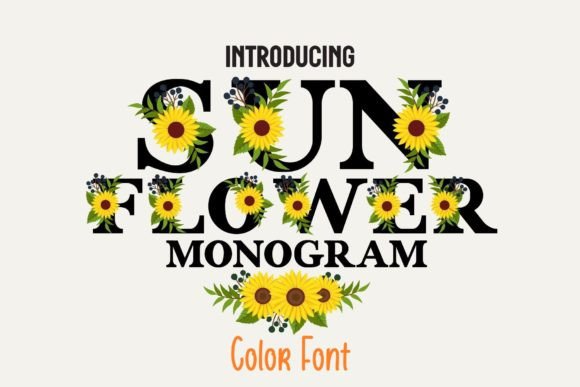
Enhance Your Web Design with Sunflower Monogram
Sunflower Monogram, a meticulously designed color font, brings a fresh and vibrant feel to any digital project. Its authentic and lively personality makes it an excellent choice for web designers, UI designers, and digital product creators looking to add a touch of elegance and vitality to their designs.
Using Sunflower Monogram for Wedding Invitations and Elegant Branding
Sunflower Monogram is perfect for creating stunning wedding invitations and elegant branding materials. Its meticulous design and vibrant colors make it an ideal choice for adding a personal and sophisticated touch to your projects. Whether you're designing for a boutique online store or a high-end event, this font can elevate the overall aesthetic and leave a lasting impression.
Boost Readability and Visual Hierarchy with Sunflower Monogram
When it comes to readability and visual hierarchy, Sunflower Monogram stands out. This premium font is not just visually appealing but also functional. Use it for website headers, hero sections, and call-to-action areas to draw attention and guide users through your content. Its unique style and clarity make it an excellent choice for both desktop and mobile screens, ensuring that your message is clear and impactful.
Creating Engaging Landing Pages with Sunflower Monogram
For landing pages, Sunflower Monogram can be a game-changer. Its vibrant and fresh feel can help in creating engaging and conversion-focused layouts. Use it for main titles, section headings, and buttons to create a strong visual impact and enhance user engagement. Pair it with a simple sans serif font for body text to maintain a balanced and professional look.
Designing Beautiful Stationery with Sunflower Monogram
Fall in love with the authentic feel of Sunflower Monogram as you use it to create beautiful stationery. Whether you're designing business cards, letterheads, or envelopes, this color font adds a touch of elegance and personality. Its meticulous design and vibrant colors make it an excellent choice for creating memorable and professional stationery that reflects your brand's identity.
Enhancing Brand Identity with Sunflower Monogram
Sunflower Monogram is not just a font; it's a powerful tool for enhancing your brand identity. Its unique style and vibrant colors can help in creating a consistent and recognizable online presence. Use it for logo text, decorative accents, and branded web content to build a strong and cohesive brand image. This font's versatility and appeal make it a valuable asset for any brand-focused web experience.
Practical Tips for Using Sunflower Monogram in Web Design
When using Sunflower Monogram in web design, consider the following practical tips:
- Test on Different Devices: Test the font on various devices and screen sizes to ensure optimal readability and visual appeal. Adjust the font size and spacing as needed for different contexts.
- Font Pairing: Pair Sunflower Monogram with a clean and simple sans serif font for body text to create a balanced and professional look. Consider using a serif font for a more editorial and sophisticated digital identity.
By integrating Sunflower Monogram into your web design projects, you can create visually stunning and highly effective digital experiences. Its fresh and vibrant feel, combined with its meticulous design, makes it a top choice for web designers, UI designers, and digital product creators who want to make a lasting impression.